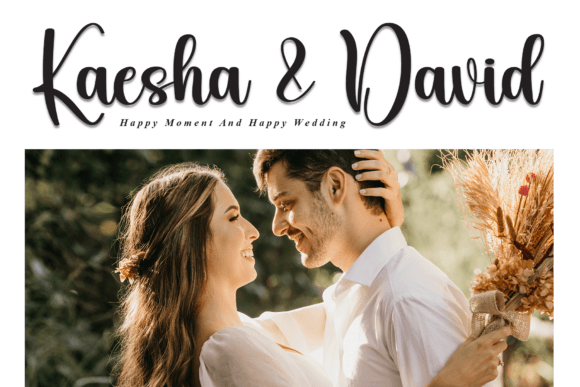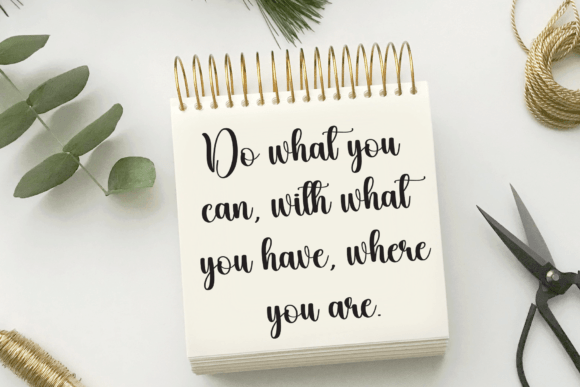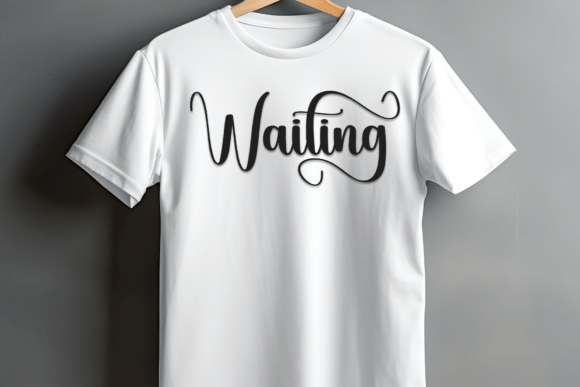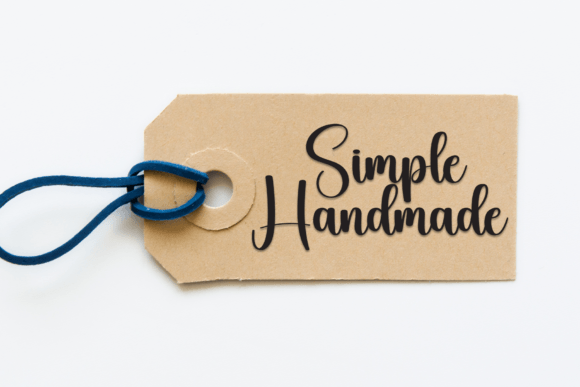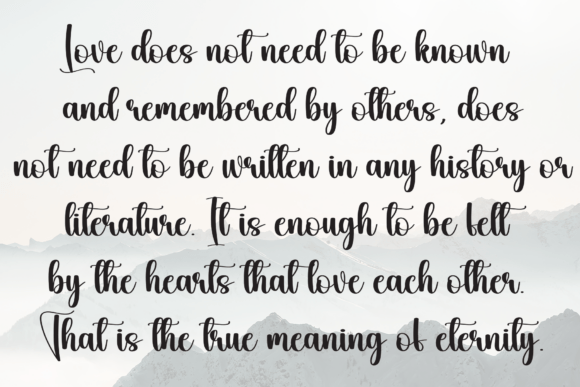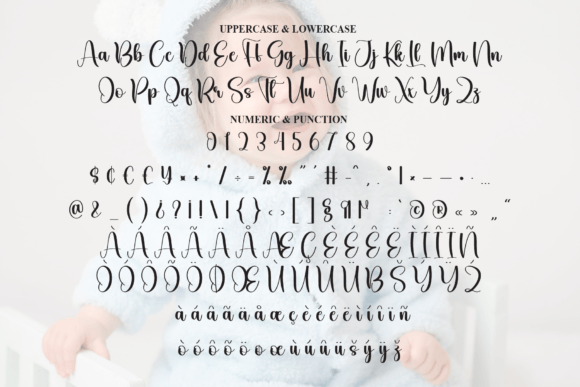
The Joy of Handwritten Charm: Introducing Babyish Font
Have you ever found yourself scribbling out a heartfelt message to a loved one, only to realize that the imperfections and quirks of your handwriting are exactly what make it special? That’s the magic of handwritten communication, and it’s exactly what inspired the creation of Babyish Font – a delightful, one-of-a-kind display font that captures the whimsical charm of handwritten script.
Designed to bring a touch of playfulness and friendliness to any design, Babyish Font is the perfect choice for crafting wedding invitations, designing birthday cards, or simply adding a dash of joy to any message. For designers, this font offers a valuable asset – a way to add a personal, human touch to even the most formal or corporate designs.
Whether you’re a seasoned pro or a design newbie, Babyish Font is sure to bring a smile to your face and a spring to your creative step.
Babyish Font Key Features
- Font Family: Babyish Font is a unique, hand-drawn font designed for use in various applications.
- Unique Characteristics: Features a playful, cursive design with intricate details, making it suitable for creative projects and designs.
- Font Style: Comes in a single font style with multiple weights (Light, Regular, Bold, and Extra Bold) for added flexibility.
Babyish Font Review
I recently had the chance to work with the Babyish Font, and I must say it’s a unique and playful choice. ✨ The font’s childlike charm is perfect for projects that require a whimsical touch. It’s also highly customizable, making it suitable for a wide range of applications.
- What works well:
- Unique and playful character
- Perfect for projects requiring a whimsical touch
- Limitations:
- May not be suitable for professional or formal projects
- Lack of robust font family (only a single weight available)
- Not ideal for body text due to readability issues
Overall, I think the Babyish Font is a great choice for projects that require a touch of playfulness and whimsy. However, it’s not the best option for projects that demand professionalism or readability. If you’re looking for a font to add some personality to your designs, Babyish Font is definitely worth considering.
The “Babyish Font” is perfect for creating playful, whimsical designs, such as:
- Children’s book covers and illustrations
- Brand identities for toy companies and children’s products
Alternatives to Babyish Font
Playfair Display is an elegant and luxurious serif font. It’s perfect for creating a high-end feel in magazines, books, and luxury brands. The font features intricate details and ornaments, making it ideal for special occasions and formal events. Compared to Babyish Font, Playfair Display is more formal and less playful, with a more sophisticated aesthetic.
Great Vibes is a beautiful and stylish script font. It’s great for creating a friendly and approachable atmosphere in advertising, packaging, and social media. The font features a relaxed and casual feel, making it perfect for brands that want to convey a sense of warmth and friendliness. Unlike Babyish Font, Great Vibes is more fluid and organic, with a softer and more rounded aesthetic.
Lato is a modern sans-serif font with a friendly and approachable feel. It’s perfect for creating a clean and minimalist look in digital products, websites, and apps. The font features a neutral and balanced design, making it ideal for brands that want to convey a sense of simplicity and clarity. Compared to Babyish Font, Lato is more straightforward and less whimsical, with a more contemporary aesthetic.